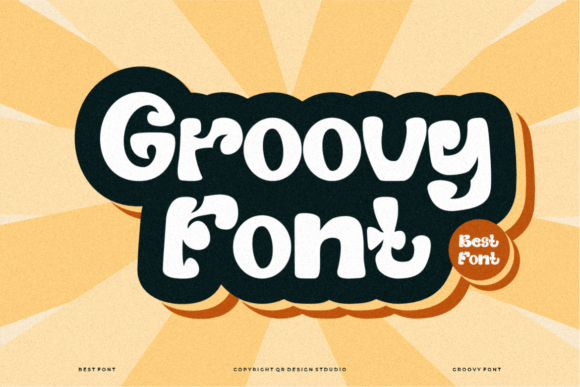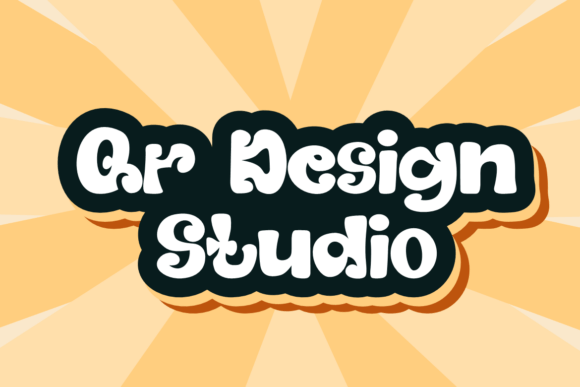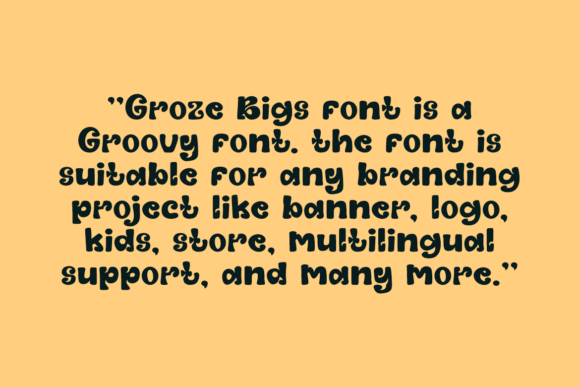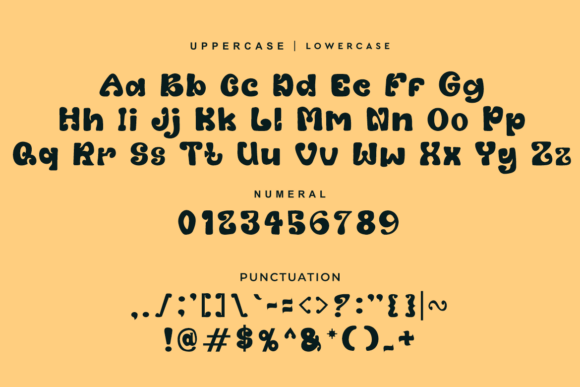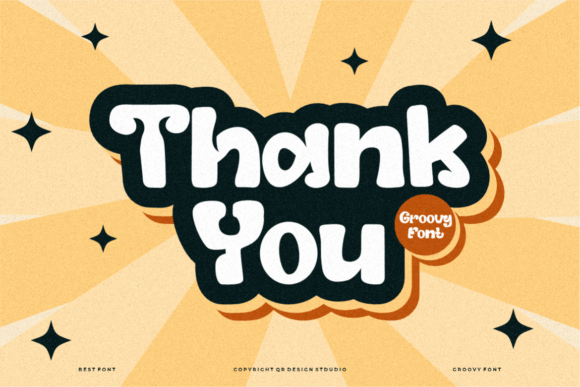
Introducing Groze Bigs Font: The Groovy and Authentic Display Font for Your Branding Needs
In the world of typography, fonts play a crucial role in conveying the tone and personality of a brand. With numerous fonts available, finding the perfect one that stands out from the crowd can be a daunting task. However, if you’re looking for a font that exudes a groovy and authentic vibe, look no further than Groze Bigs Font. This display font is designed to elevate your branding projects, making it an ideal choice for logos, sports, and various other applications.
What Makes Groze Bigs Font Stand Out?
Groze Bigs Font boasts a unique and captivating design that sets it apart from other fonts. Its groovy and authentic style makes it perfect for brands that want to convey a sense of fun, energy, and playfulness. The font’s versatility allows it to excel in a wide range of contexts, from sports and entertainment to fashion and lifestyle.
Key Features of Groze Bigs Font
- Groovy and Authentic Design: Groze Bigs Font features a distinctive design that is reminiscent of the groovy and funky styles of the 60s and 70s.
- Display Font: This font is specifically designed as a display font, making it perfect for headlines, titles, and other attention-grabbing elements.
- Versatile: Groze Bigs Font can be used in various contexts, including logos, branding, advertising, and more.
- Easily Readable: Despite its unique design, Groze Bigs Font remains easily readable, making it a great choice for titles and headings.
Use Cases for Groze Bigs Font
Groze Bigs Font is an excellent choice for various design projects, including:
- Logo Design: Create a memorable and eye-catching logo that reflects your brand’s personality.
- Sports Branding: Add a touch of energy and excitement to your sports branding with Groze Bigs Font.
- Advertising: Use Groze Bigs Font to create attention-grabbing headlines and titles that capture your audience’s attention.
- Fashion and Lifestyle: Add a groovy touch to your fashion and lifestyle branding with this unique font.
Why Designers and Crafters Love Groze Bigs Font
Designers and crafters appreciate fonts that offer a unique blend of style, versatility, and readability. Groze Bigs Font checks all these boxes, making it a favorite among creative professionals.
With Groze Bigs Font, designers can:
- Save Time: The font’s unique design and versatility save designers time and effort in finding the perfect font for their projects.
- Enhance Creativity: Groze Bigs Font’s groovy and authentic style inspires creativity and adds a touch of personality to designs.
- Deliver High-Quality Results: The font’s readability and versatility ensure that designers can deliver high-quality results that meet their clients’ expectations.
Groze Bigs Font is an exceptional display font that offers a unique blend of style, versatility, and readability. Its groovy and authentic design makes it perfect for brands that want to convey a sense of fun, energy, and playfulness. Whether you’re a designer or crafter, Groze Bigs Font is an excellent addition to your font library. With its wide range of applications and ease of use, this font is sure to become a favorite among creative professionals.